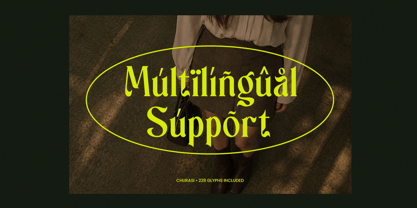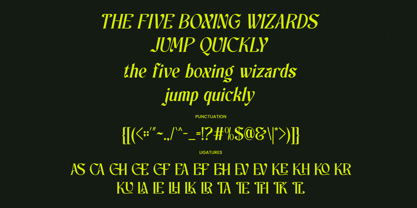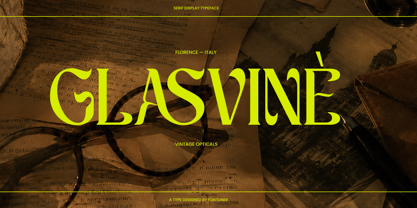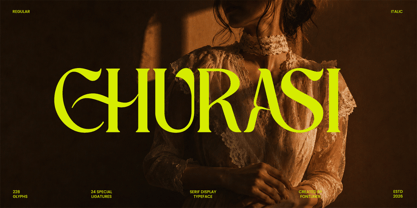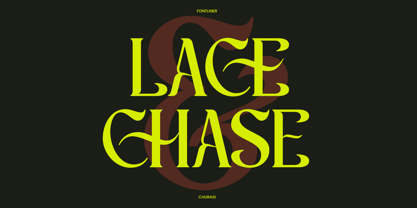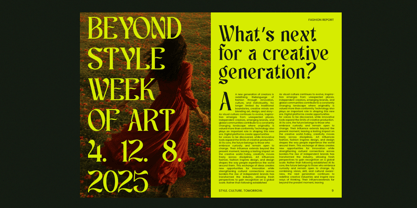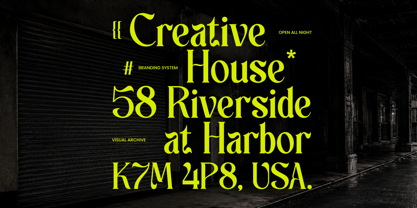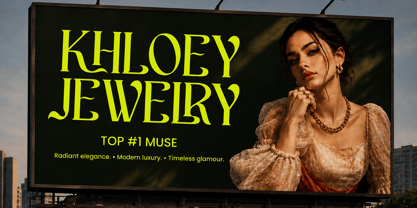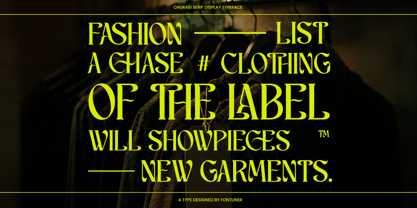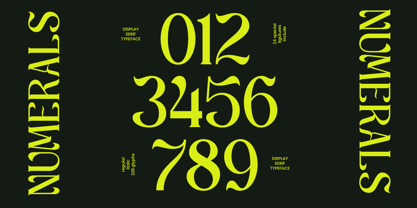
Churasi
por Font Liner
La familia tipográfica Churasi fue diseñada por Yogiswhara Dio Prakoso Riadi y publicada por Font Liner. Churasi contiene 2 estilos y opciones de paquete familiar. Más información sobre esta familia
Churasi is an elegant luxury serif display font crafted to bring sophistication, fashion, and timeless beauty into every design. Inspired by high-end editorials, luxury branding, and premium fashion houses, this typeface features graceful curves, refined contrast, and distinctive artistic letterforms that create an unforgettable visual presence. The stylish alternates and decorative details make every headline feel exclusive and premium.
Designed for modern creatives, Churasi works beautifully across luxury logos, fashion campaigns, magazine covers, beauty branding, jewelry packaging, wedding stationery, and upscale product presentations. Its sophisticated character balance allows designers to create both classic and contemporary aesthetics while maintaining strong readability and visual impact.
Whether you're building a luxury brand identity, designing an editorial masterpiece, or creating elegant marketing materials, Churasi delivers the perfect combination of glamour, refinement, and professionalism. The font includes beautifully crafted ligatures and stylistic details that elevate your typography into a statement of elegance.
• Regular and Italic Style
• Stylistic Ligatures
• Uppercase and Lowercase
• Number, Symbol, and Punctuation
• Multi Language Support
Diseñadores: Yogiswhara Dio Prakoso Riadi
Fundición: Font Liner